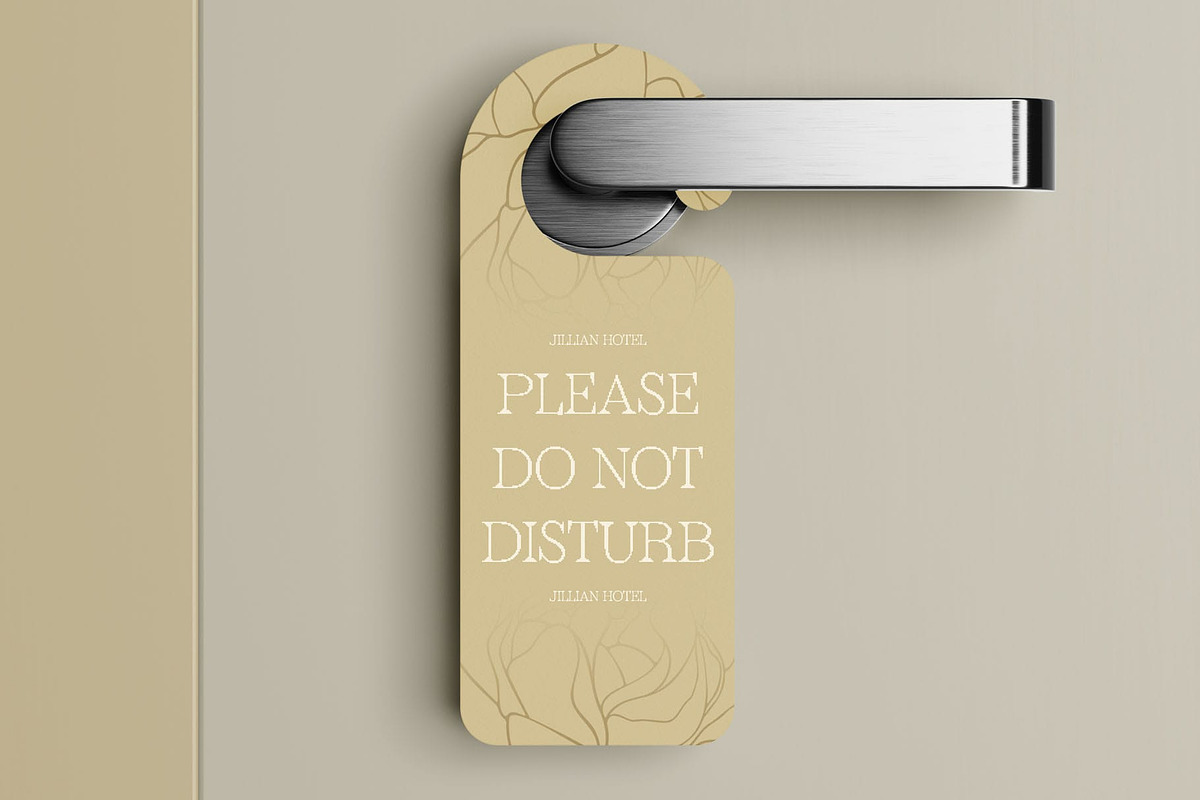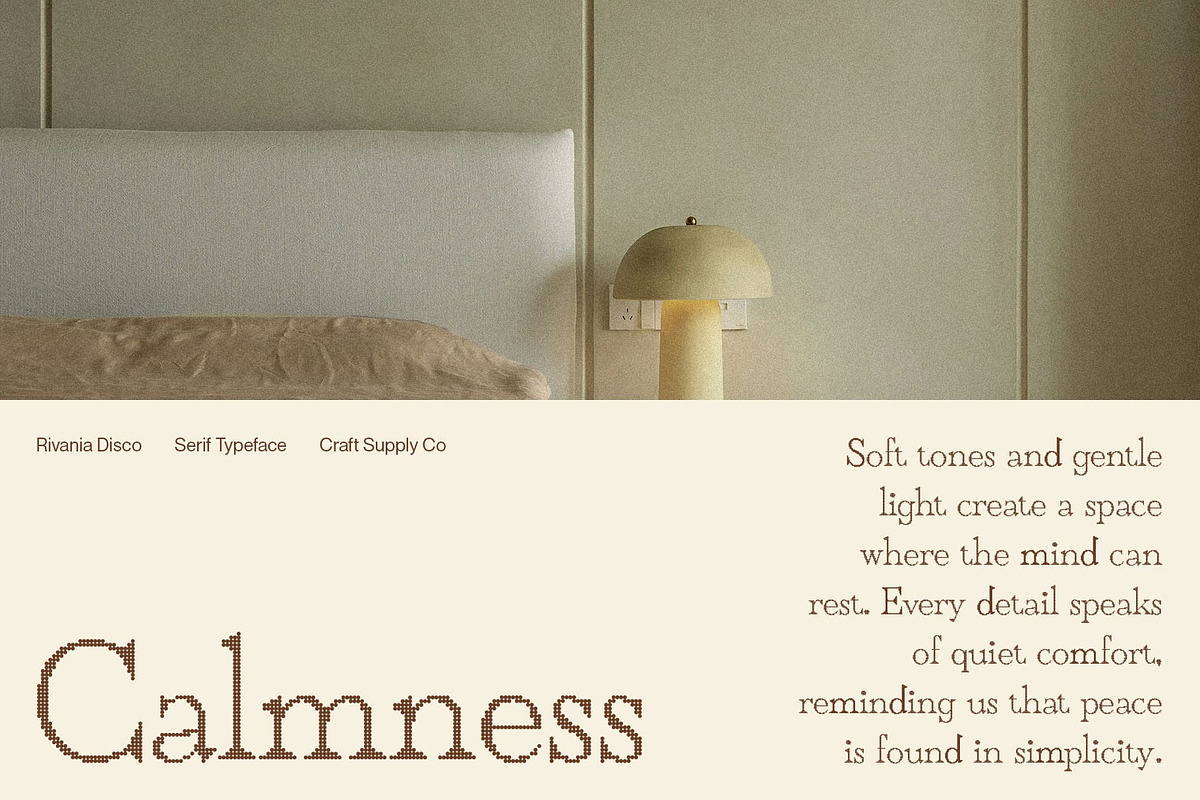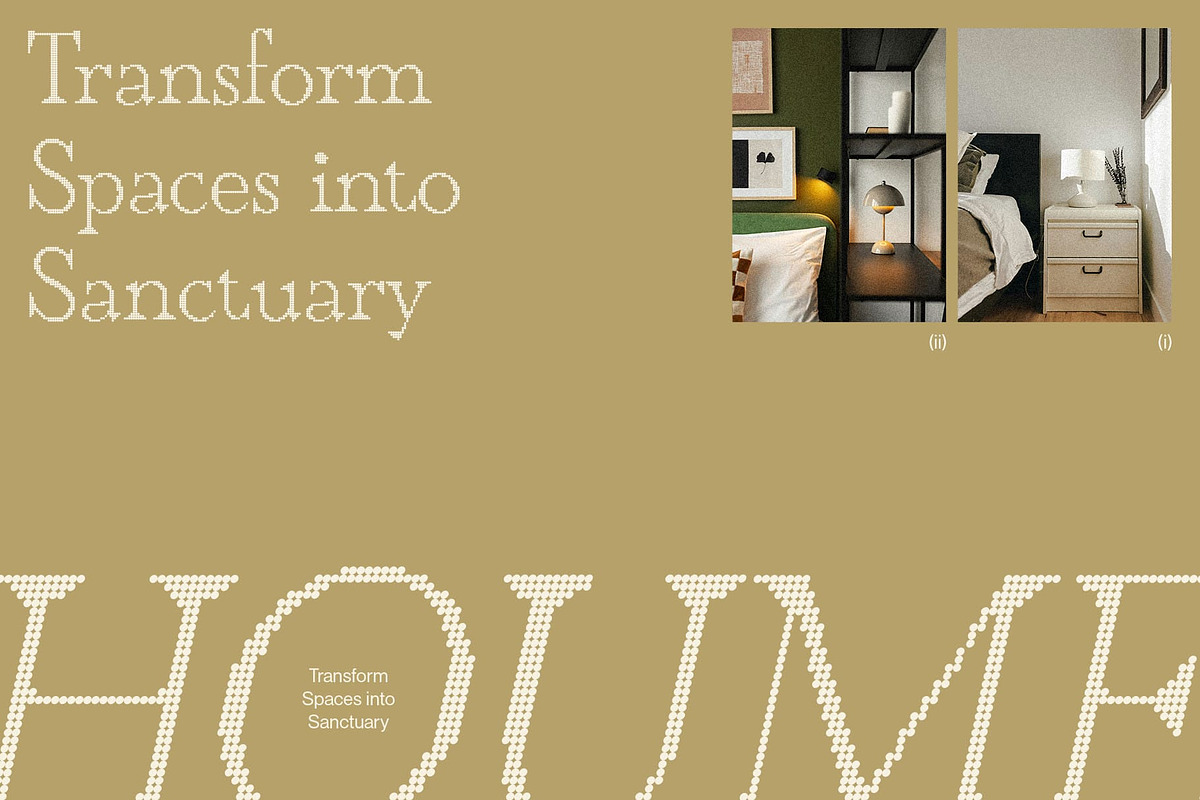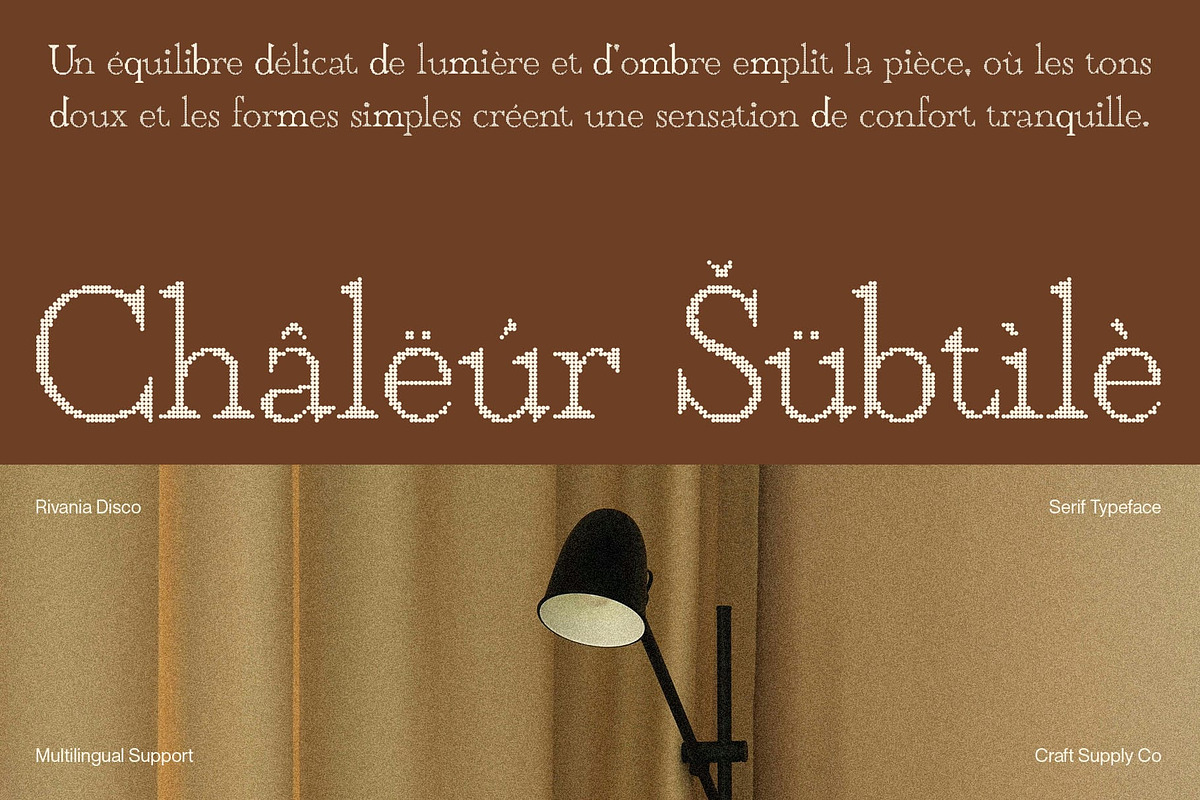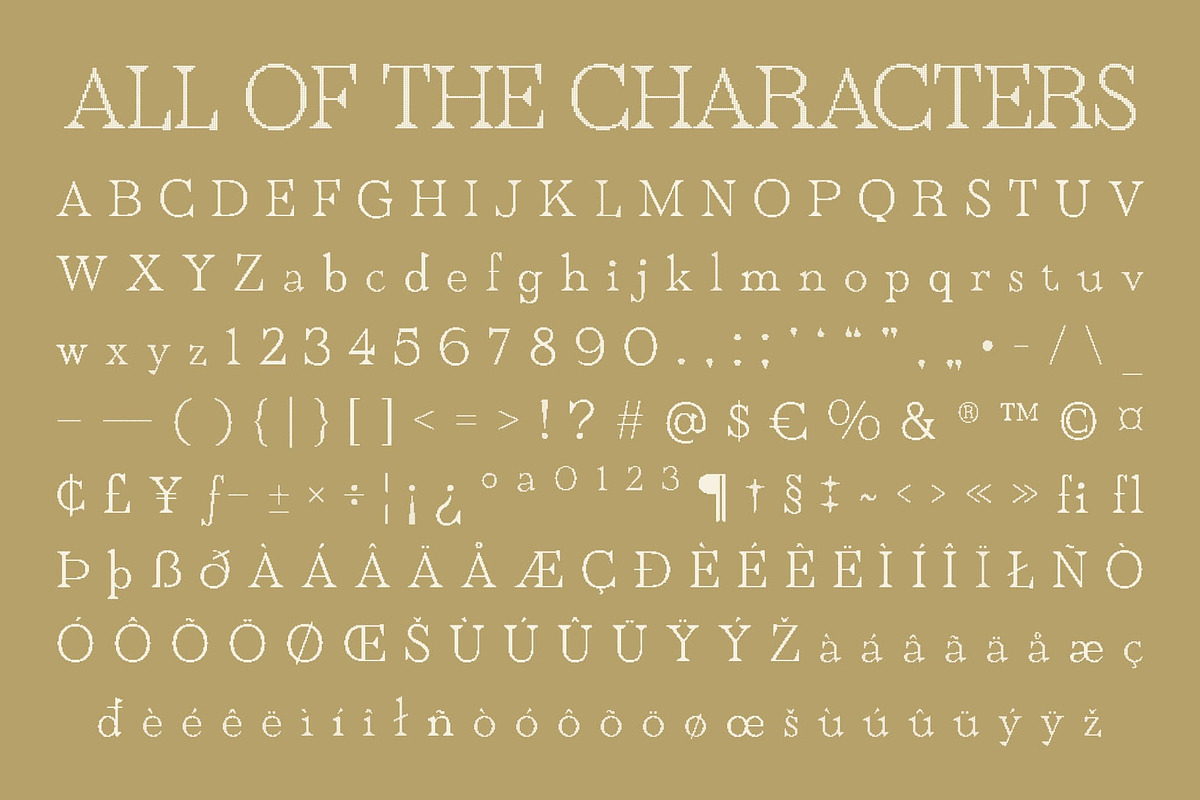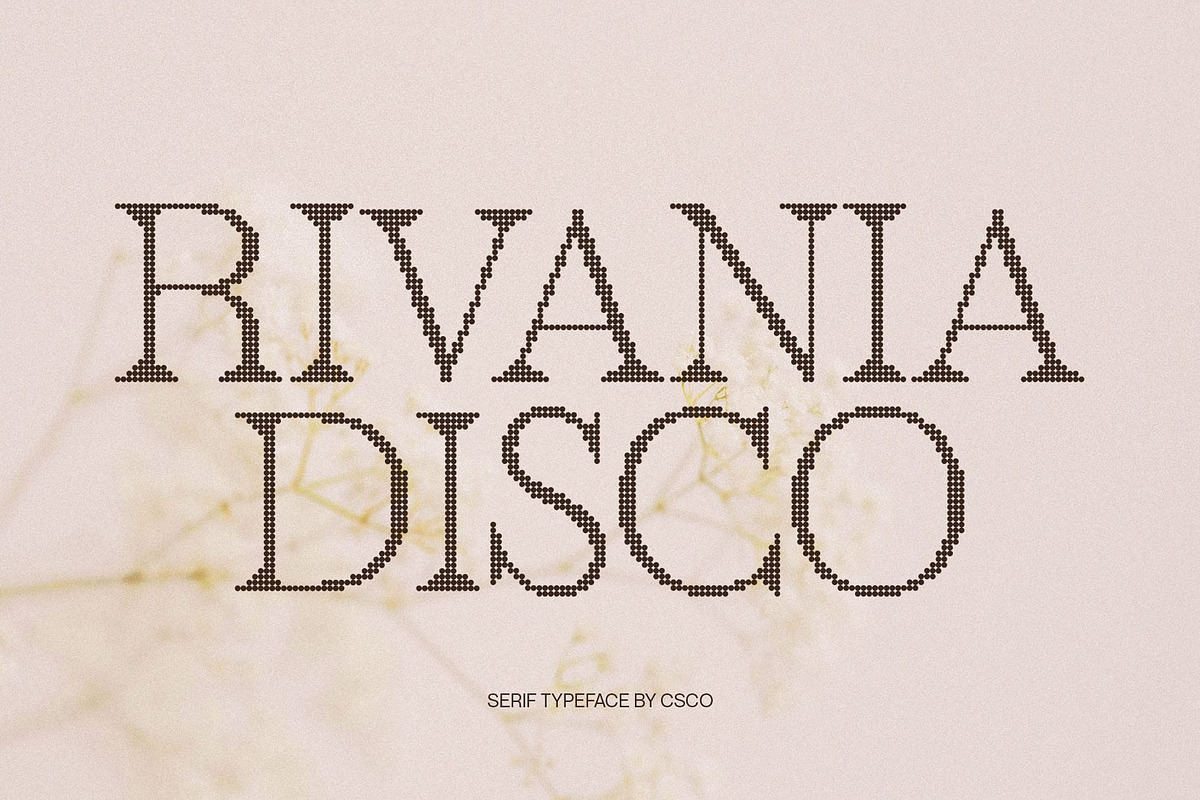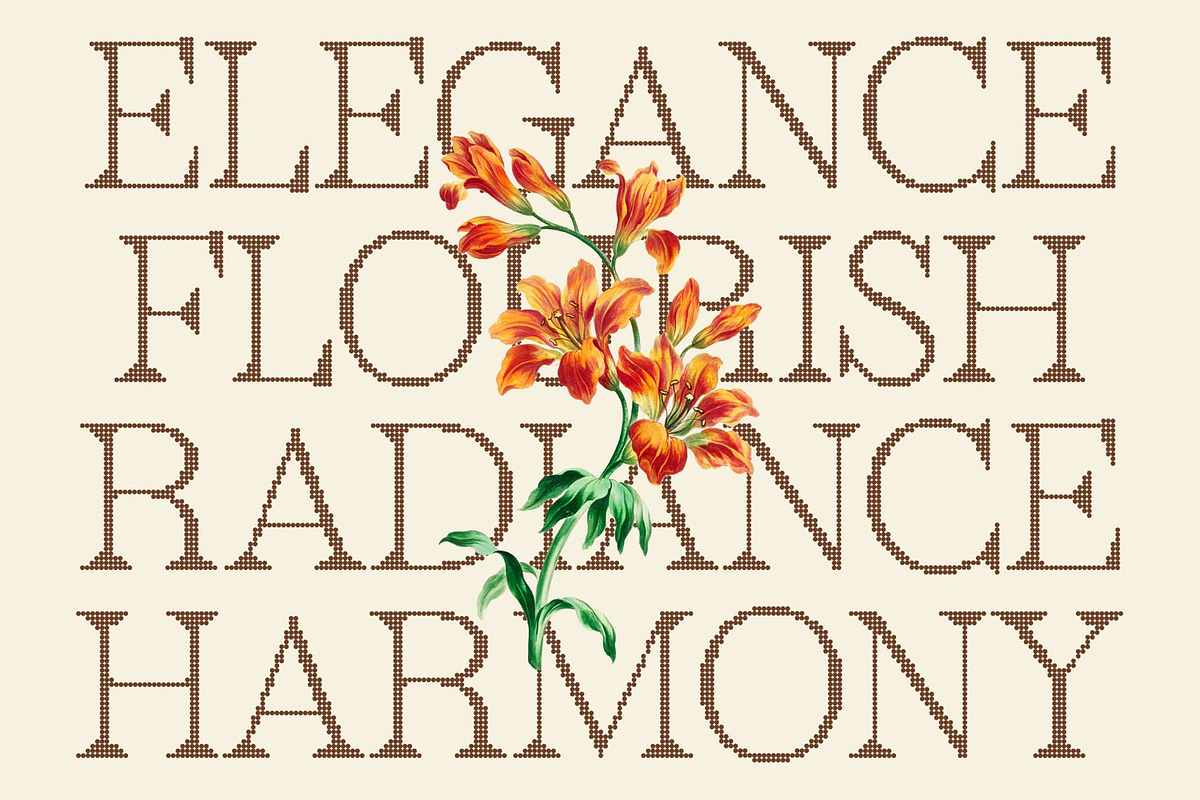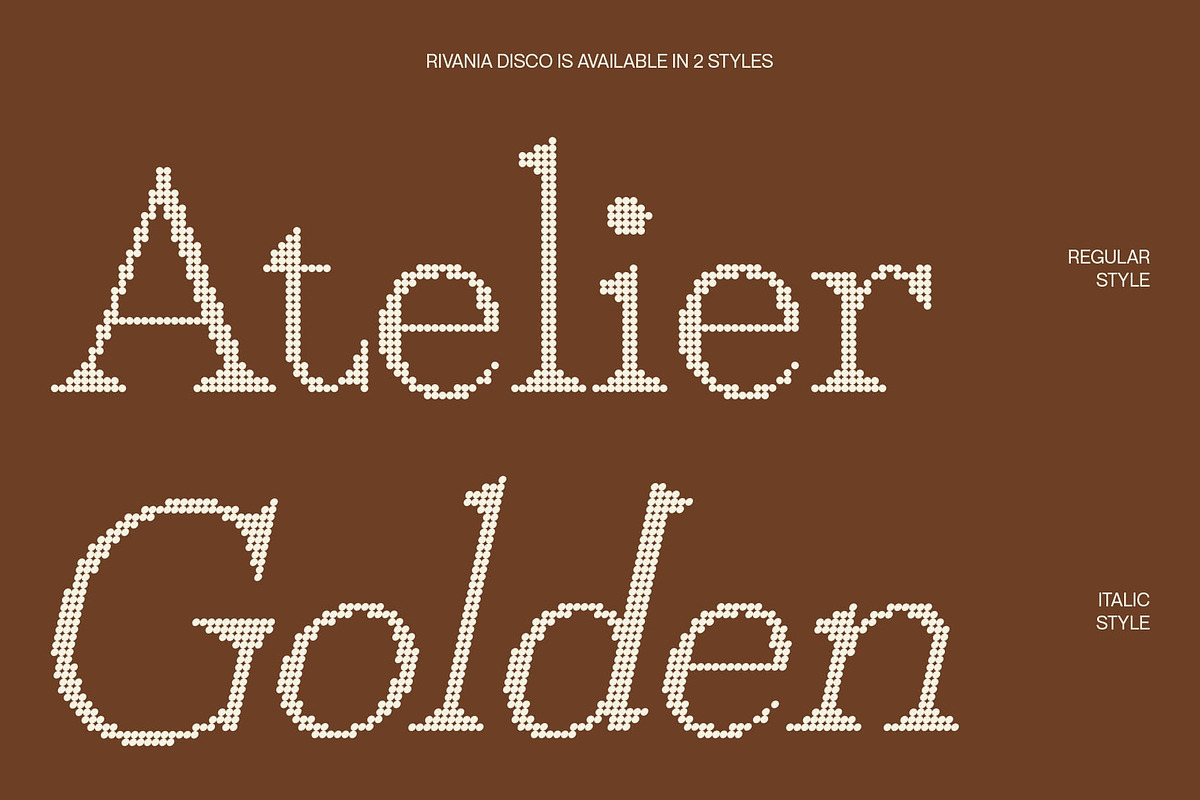
Rivania Disco
Rivania Disco: Fresh Energy with Sparkling Style Modern Font with Disco Effect This is a modern serif display font where clean modern lines meet the shimmer of disco-inspired details. Each character radiates energy, enhanced by a sparkling effect that adds rhythm and vibrancy. It’s designed to stand out, making every project shine with contemporary flair. Dynamic Sparkle for Visual Impact The disco effect gives each letter a lively sense of movement, almost like it’s pulsing with light. This dynamic shimmer transforms text into a glamorous focal point, ensuring your design captures attention from the very first glance. Clean Lines with Expressive Flair At its core, this font maintains the clarity of clean, structured lines, but the added disco-inspired details bring warmth, playfulness, and visual interest. This balance between order and creativity makes it versatile across both professional and experimental design. Perfect for Branding and Creative Posters From bold headlines to vibrant posters and contemporary branding, rives in projects that demand freshness and energy. Whether you’re creating for fashion, music, or modern promotions, this font ensures your message looks eye-catching, memorable, and full of life. Download Type Speciment: --- What you get : - Rivania Disco Regular - Rivania Disco Italic Features : - Uppercase and lowercase characters - Numerals and Punctuation (OpenType Standard) - Accents (Supports Multilingual Characters) - PUA Encoding --- You can use this typeface without needing any specialized software. --- If you have any inquiries or need assistance, please feel free to contact us. We appreciate your support in enhancing your creative projects! Best regards, Craft Supply Co.